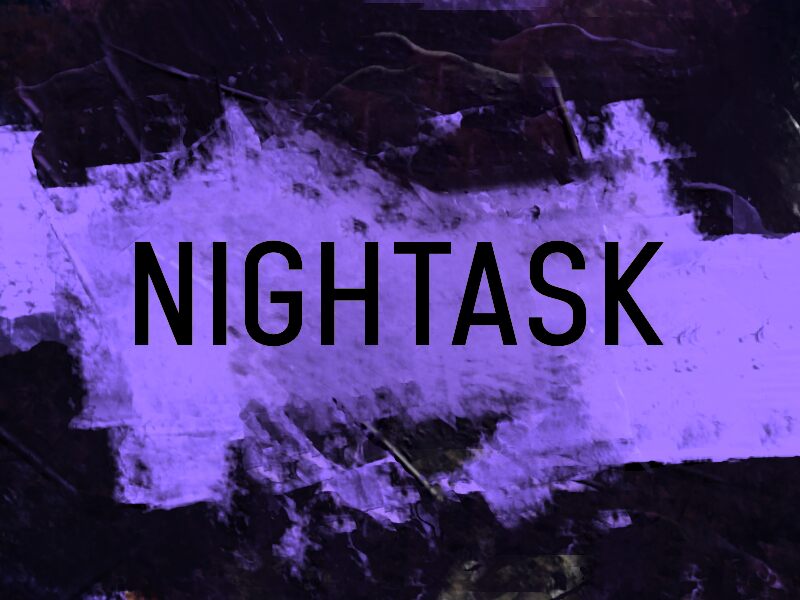
NIGHTASK
Nightask font by wep is a free sans serif typeface that tackles a familiar layout issue: fitting strong, readable text into tight horizontal spaces. Its tall, narrow letters, generous x-height, and slightly softened corners give it a clean, modern presence that doesn’t feel cold. Strokes stay even and steady, so words lock together in a neat, upright rhythm that holds up on screens and in print.
Using Nightask, you can set app interfaces, navigation bars, sidebars, labels, and compact headlines without watching your text awkwardly wrap or shrink to illegibility. This free font also works beautifully for posters, social graphics, web banners, and product packaging where space is limited but clarity matters. Try pairing Nightask at larger sizes with a simple geometric sans or a light-weight body font to keep the hierarchy sharp and effortless.